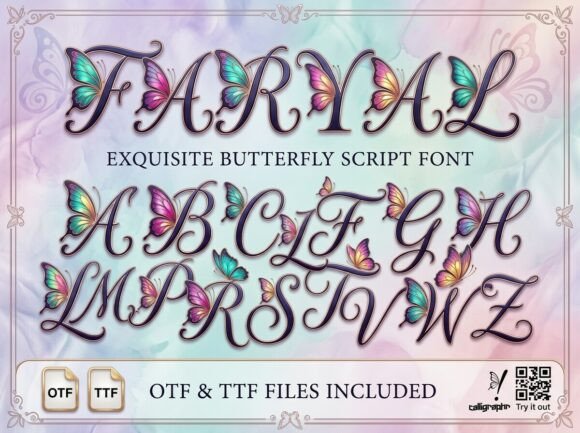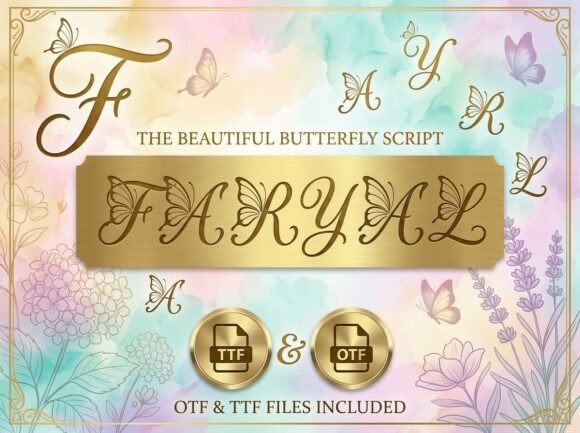
Introducing Faryal Font: Elevate Your Designs with Whimsical Elegance
In the world of typography, few fonts capture the essence of elegance and whimsy as beautifully as Faryal. This stunning calligraphy script font seamlessly blends traditional sophistication with the delicate charm of nature, making it a perfect choice for designers and crafters looking to add a touch of magic to their projects. With its unique adornment of hand-drawn butterfly wings on each capital letter, Faryal Font is set to transform your designs into ethereal masterpieces.
The Unique Charm of Faryal Font
Faryal Font is not just a typeface; it’s an experience. Imagine a font where every capital letter is delicately adorned with hand-drawn butterfly wings, giving your text a rhythmic and ethereal quality. This breathtaking calligraphy script merges traditional elegance with a whimsical touch, making it an exquisite choice for a variety of design projects. Whether you’re working on fairy-tale wedding invitations, boutique beauty branding, feminine logos, or poetic editorial layouts, Faryal Font brings a level of sophistication and charm that’s hard to match.
Design Applications for Faryal Font
The versatility of Faryal Font makes it suitable for a wide range of design applications. Here are a few ideas to get you started:
- Fairy-tale Wedding Invitations: Add a touch of whimsy and romance to your wedding invitations with Faryal. The delicate butterfly wings and fluid strokes create a dreamy aesthetic that’s perfect for couples looking to make their wedding stationery truly unforgettable.
- Boutique Beauty Branding: Elevate your beauty brand with the elegant and feminine charm of Faryal. This font is ideal for creating luxurious and sophisticated branding that stands out in the beauty industry.
- Feminine Logos: Give your brand a touch of elegance with a custom logo designed using Faryal Font. The unique butterfly wing details add a playful yet sophisticated element that’s sure to captivate your audience.
- Poetic Editorial Layouts: Bring your editorial designs to life with the poetic and ethereal quality of Faryal. Whether you’re working on a magazine, blog, or book, this font adds a level of depth and beauty that’s sure to engage readers.
Key Features of Faryal Font
Faryal Font boasts several key features that make it a standout choice for designers:
- Fluid Strokes: The fluid, graceful strokes of Faryal create a sense of movement and elegance, making your text feel dynamic and sophisticated.
- Shimmering Details: The delicate butterfly wings on each capital letter add a shimmering, whimsical touch that turns every word into a work of art.
- Ethereal Aesthetic: The combination of traditional calligraphy with nature-inspired elements creates an ethereal aesthetic that’s both captivating and unique.
Why Choose Faryal Font?
In a world where design trends come and go, Faryal Font offers a timeless elegance that will elevate your projects to new heights. Here are a few reasons why Faryal should be your go-to font:
- Unique and Memorable: The hand-drawn butterfly wings on each capital letter make Faryal instantly recognizable and memorable.
- Versatile: Whether you’re working on digital projects or print materials, Faryal Font adapts seamlessly to various design applications.
- Elegant and Whimsical: Faryal strikes the perfect balance between elegance and whimsy, making it suitable for a wide range of design projects.
| Author | Raholco |
Faryal Font is more than just a typeface; it’s a design experience. With its breathtaking calligraphy, delicate butterfly wing details, and fluid strokes, Faryal turns every word into a graceful transformation. Whether you’re a designer looking to elevate your projects or a crafter seeking inspiration, Faryal Font is sure to spark your creativity and bring your designs to life. Let your designs take flight with Faryal, and discover a world of elegance and whimsy that will leave a lasting impression on your audience.